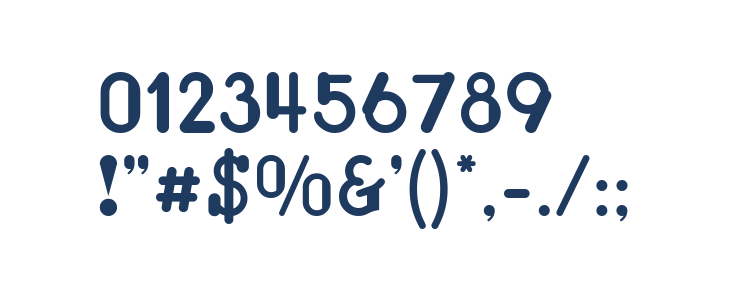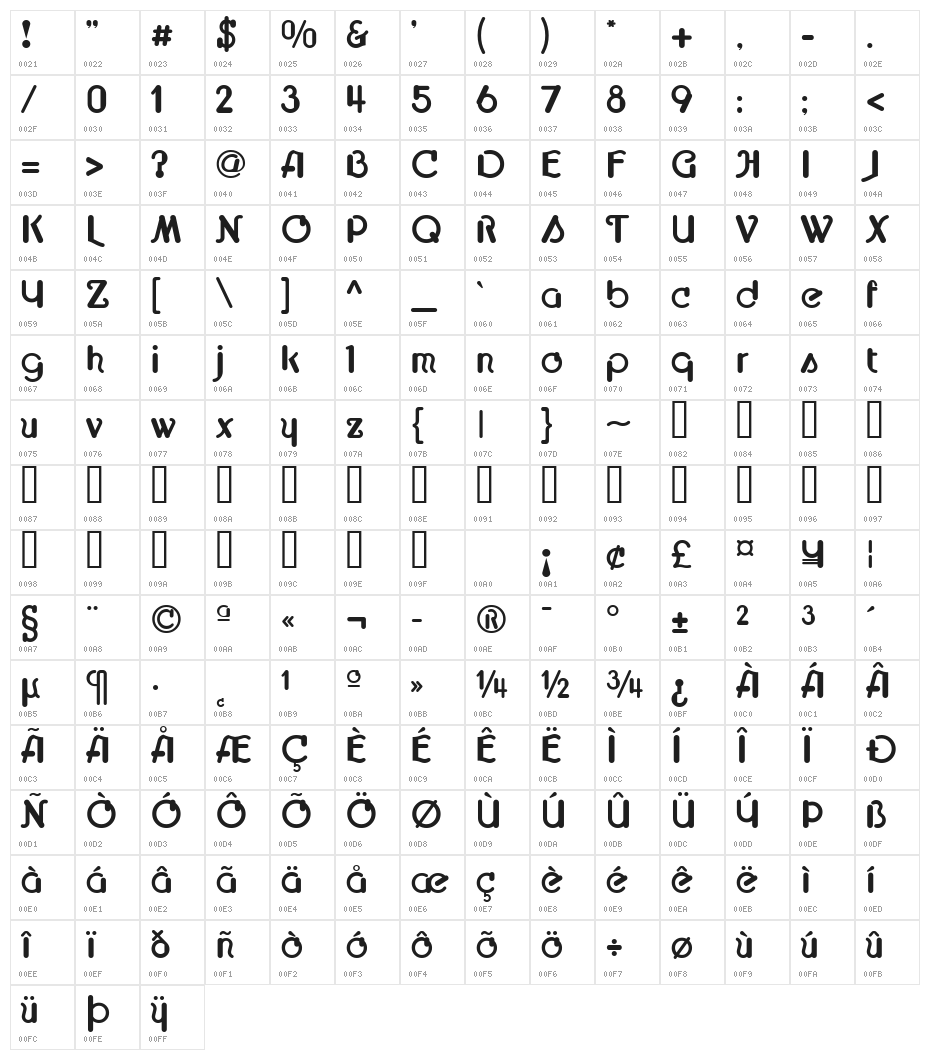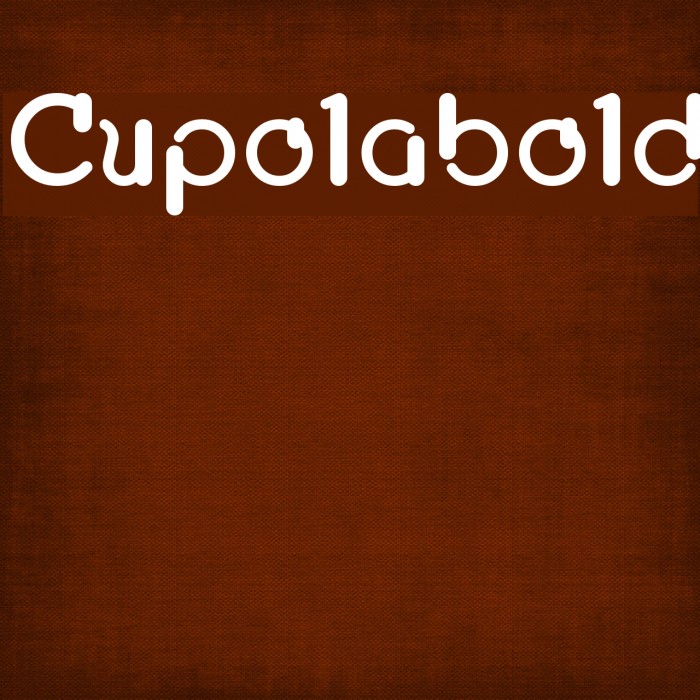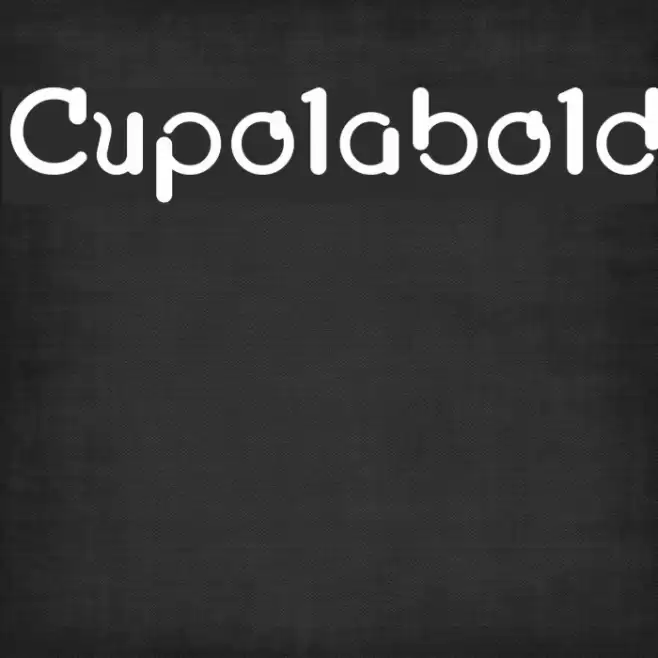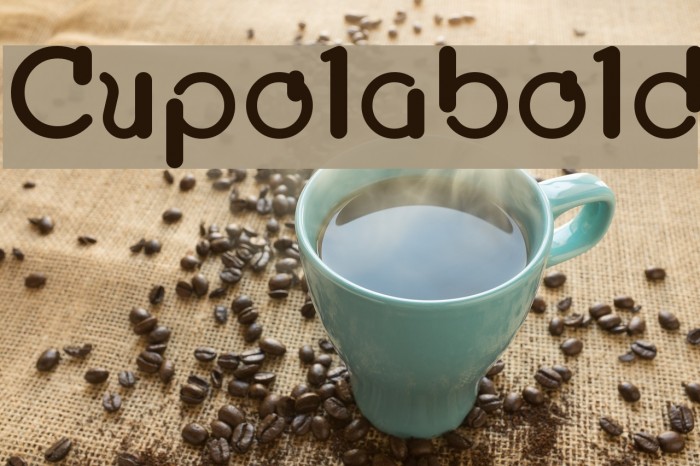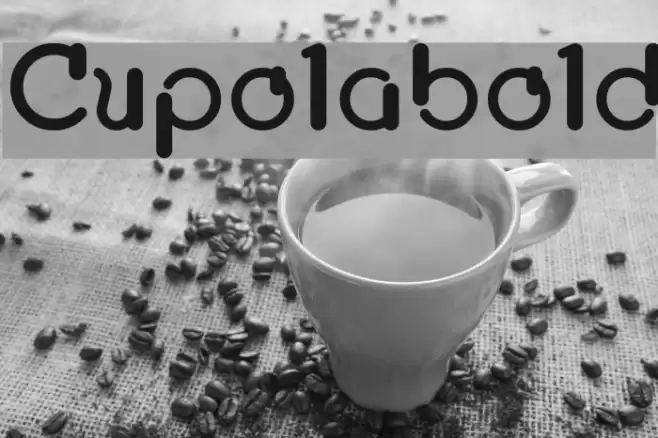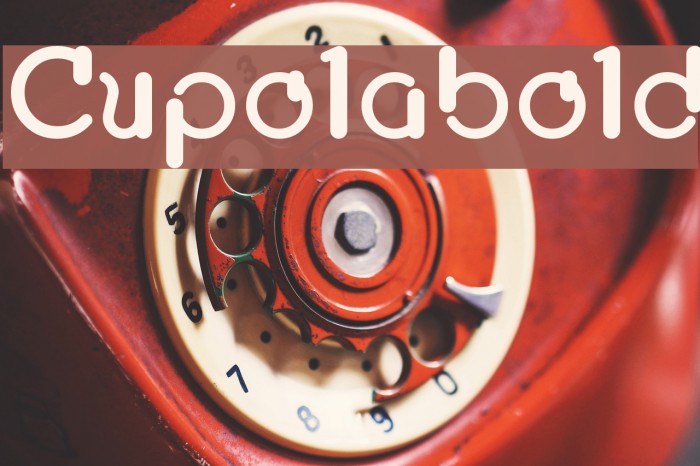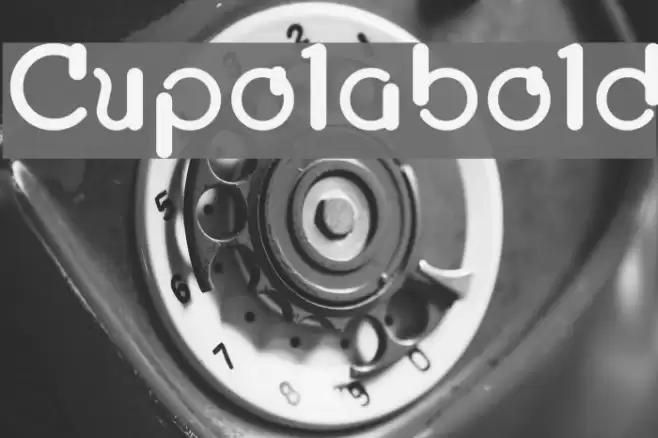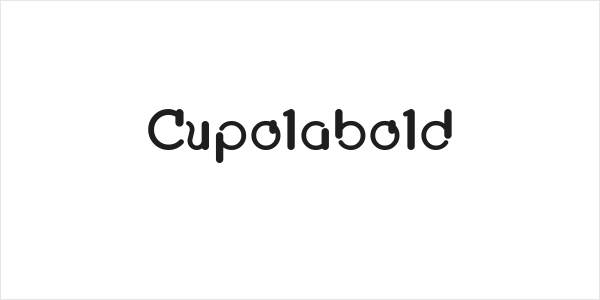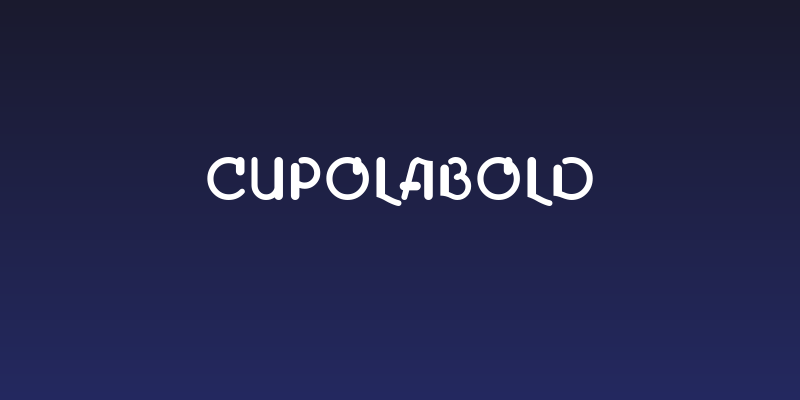
Cupolabold Font
Cupolabold Description
This font features a bold and playful design, characterized by its rounded and slightly irregular shapes. The letters have a whimsical and friendly appearance, with a consistent thickness throughout each character. The uppercase letters are distinct and easily readable, while the lowercase letters maintain a similar style, ensuring cohesion across text. The numerals and special characters follow the same design principles, making them blend seamlessly with the alphabet. This font's unique style makes it stand out, offering a modern yet approachable feel.
| Overall Style | Playful, Modern |
| Proposed Projects | Ideal for children's books, playful branding, posters, and creative projects that require a friendly and approachable typeface. |